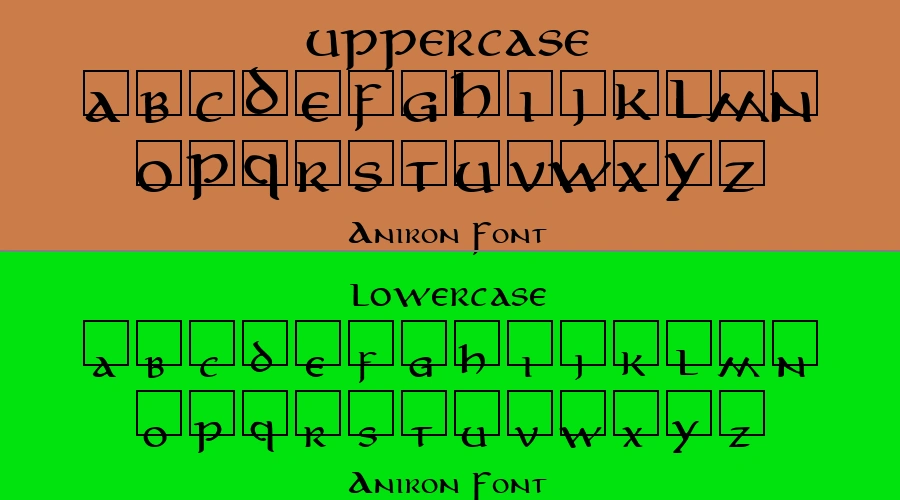
About Aniron Font
Aniron Font represents a sophisticated approach to type design, balancing distinctive terminals with clarity. Perfect for mobile applications, this font family showcases impressive adaptability and creative potential throughout its character set. Designers appreciate its versatility and reliability.
Designers will appreciate nuanced touches including dramatic swashes and ordinals, adding sophistication to any project. These features become apparent in technical manuals, where detail preservation matters most. The careful treatment of proportion and character ensures optimal performance.